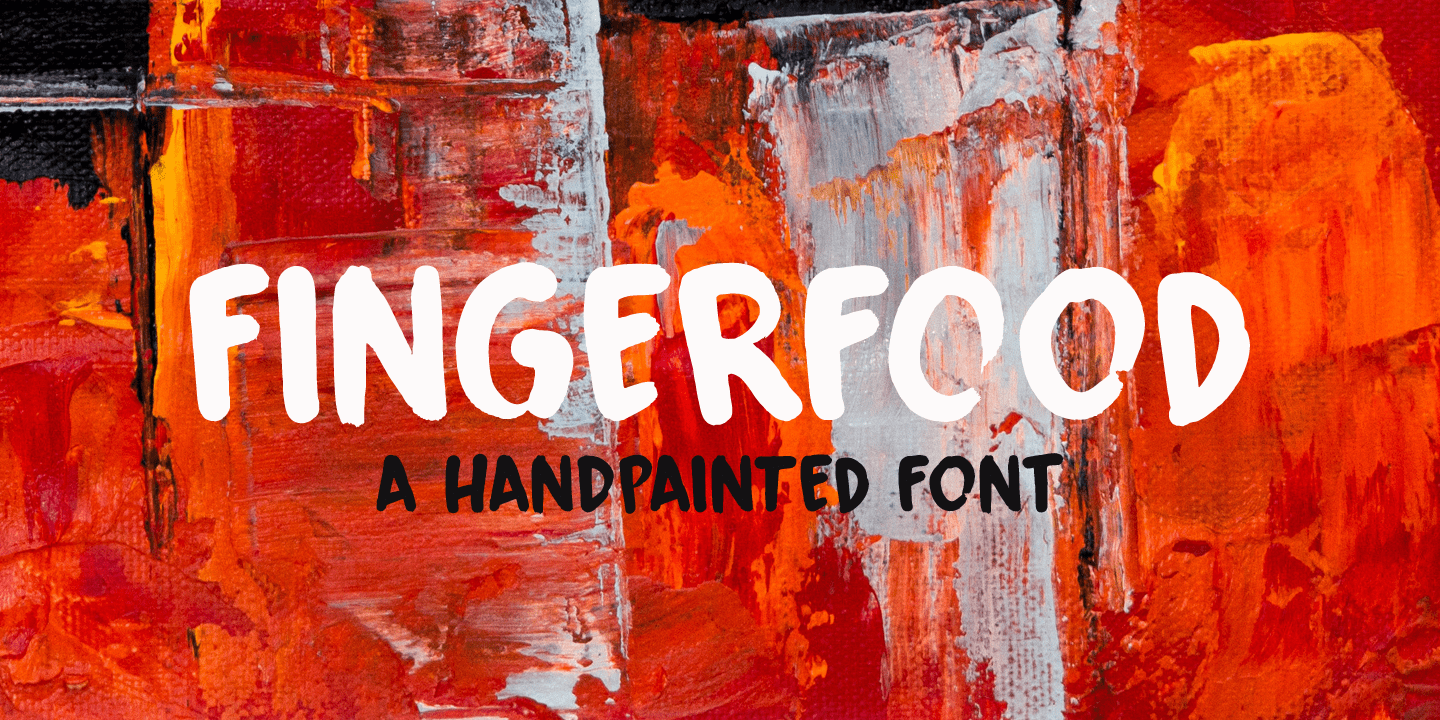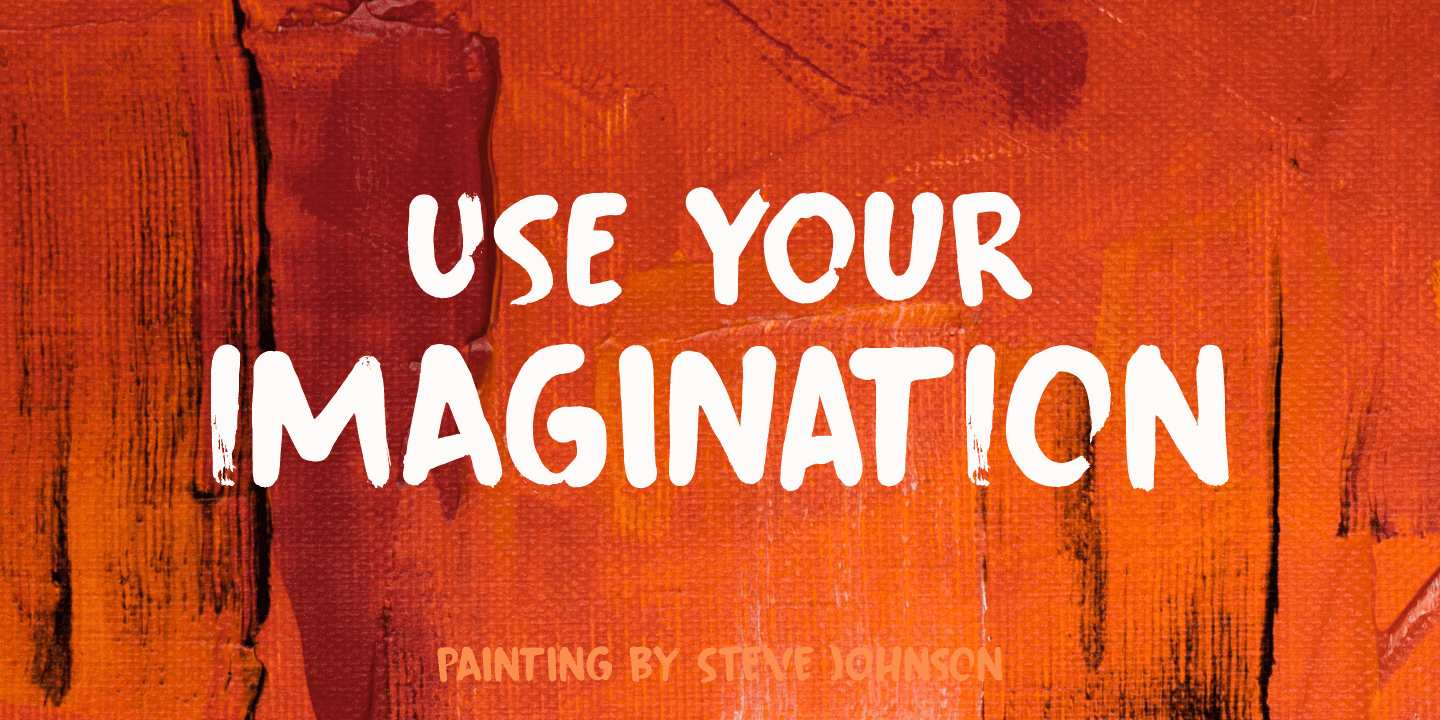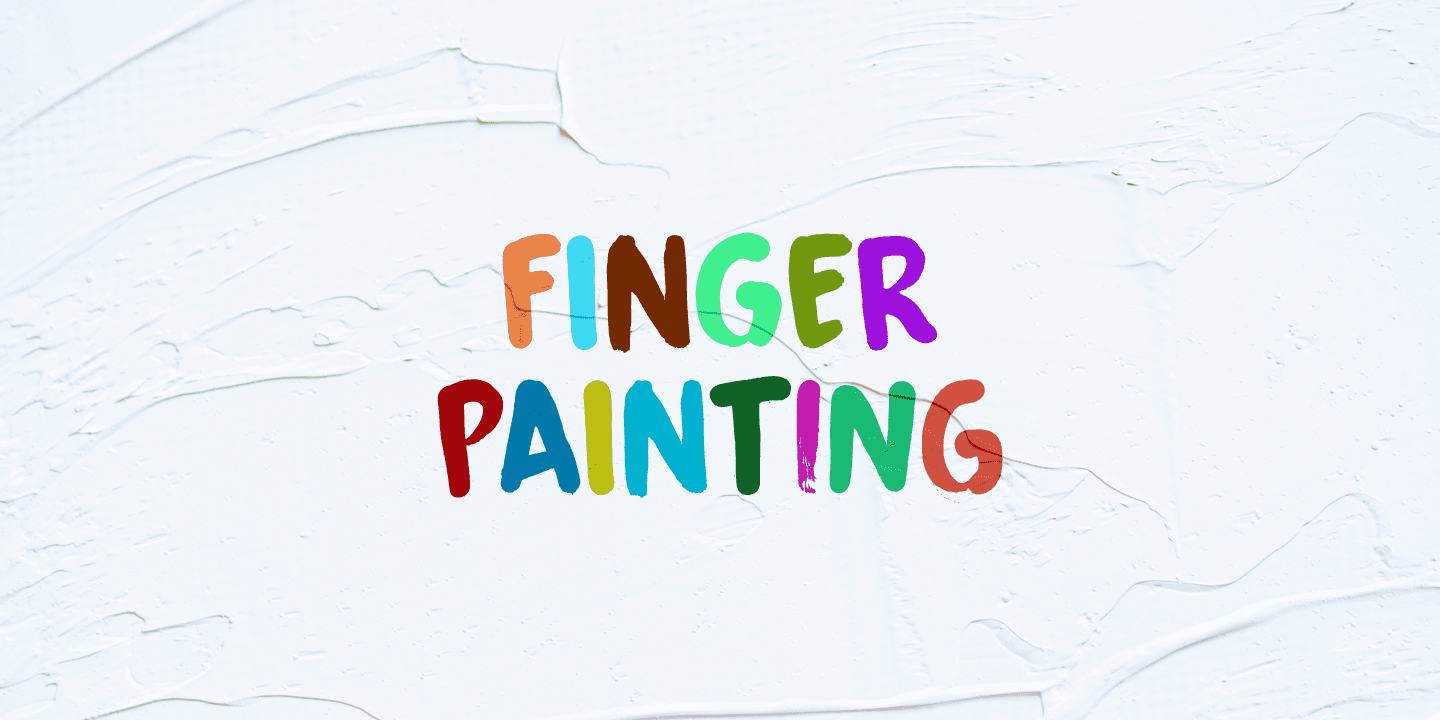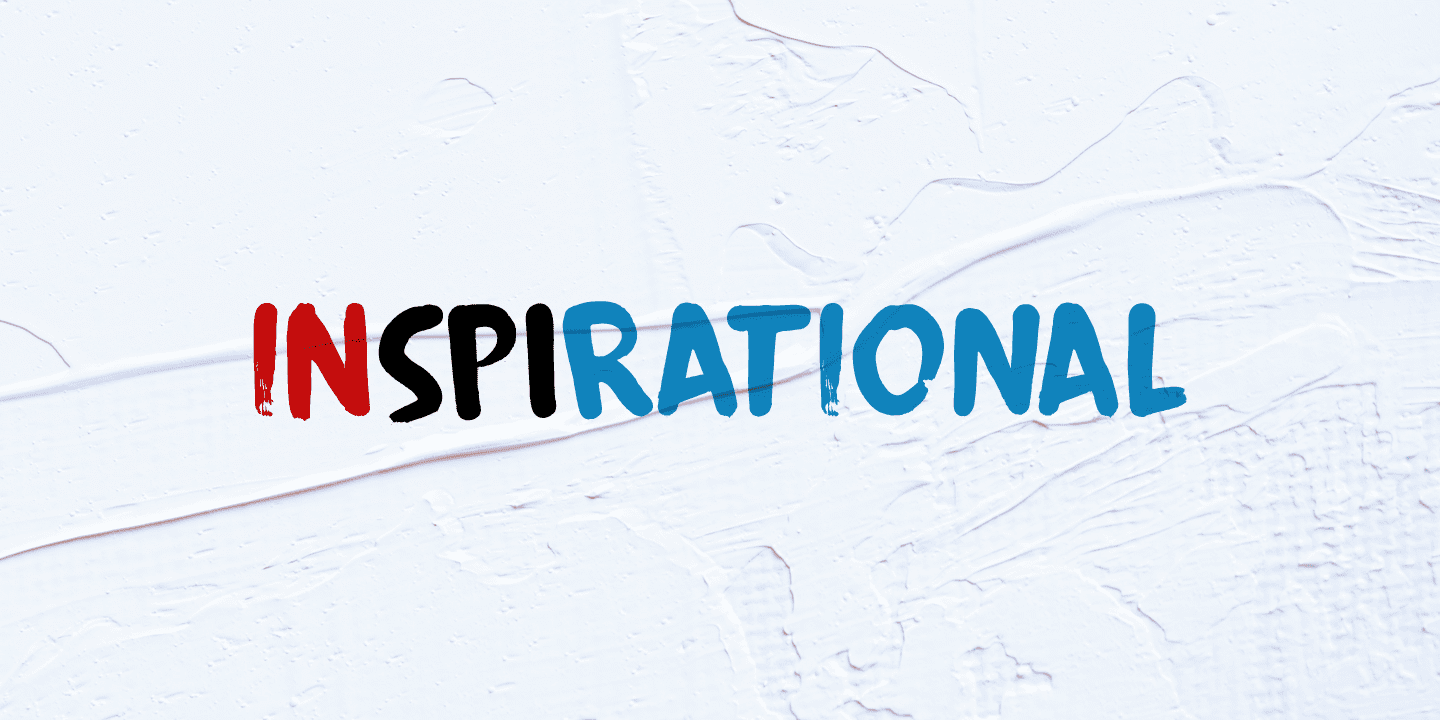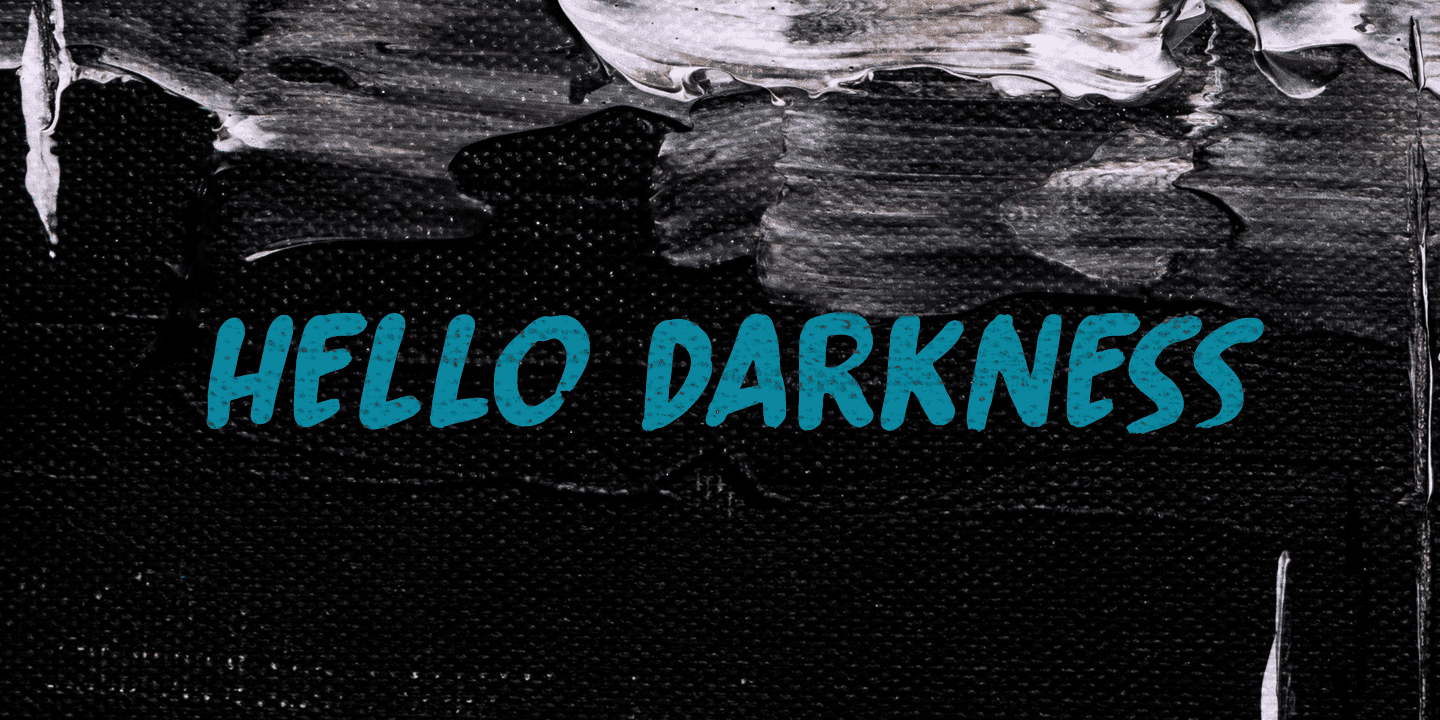
Fingerfood Family (2 fonts)
Fingerfood, of course, is hand made. It is a rather playful font - all caps, but lower and upper case differ and like to mingle. Comes with a full diacritics palette.